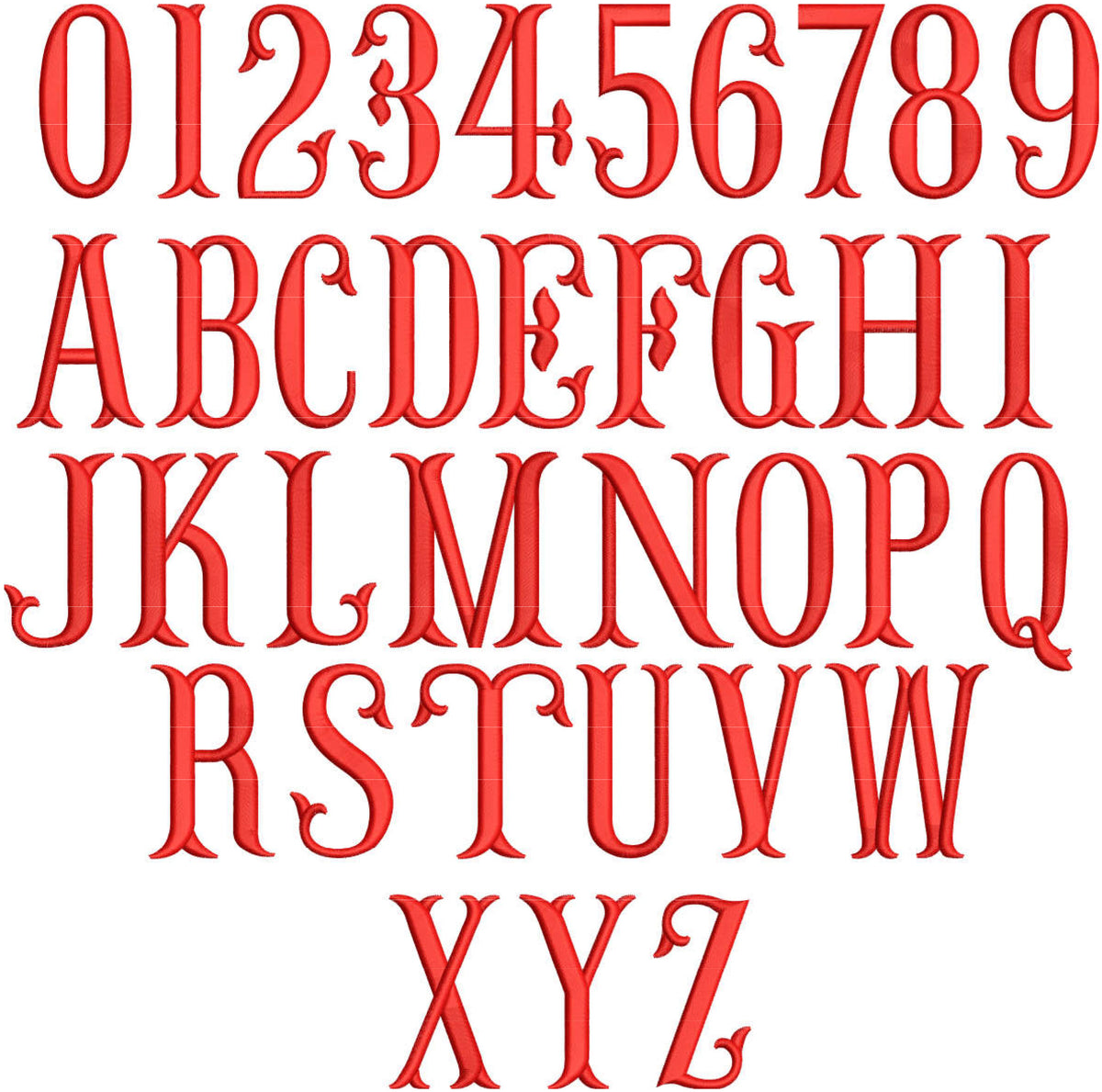
Modern Fishtail Embroidery Font
Add a sleek, flowing look to personalized embroidery with the Modern Fishtail font. Its elegant fishtail-inspired lettering brings a stylish finish to monograms, names, clothing, accessories, and handmade gifts.
Create polished, modern embroidery projects with a beautiful fishtail-inspired style that feels both clean and distinctive.